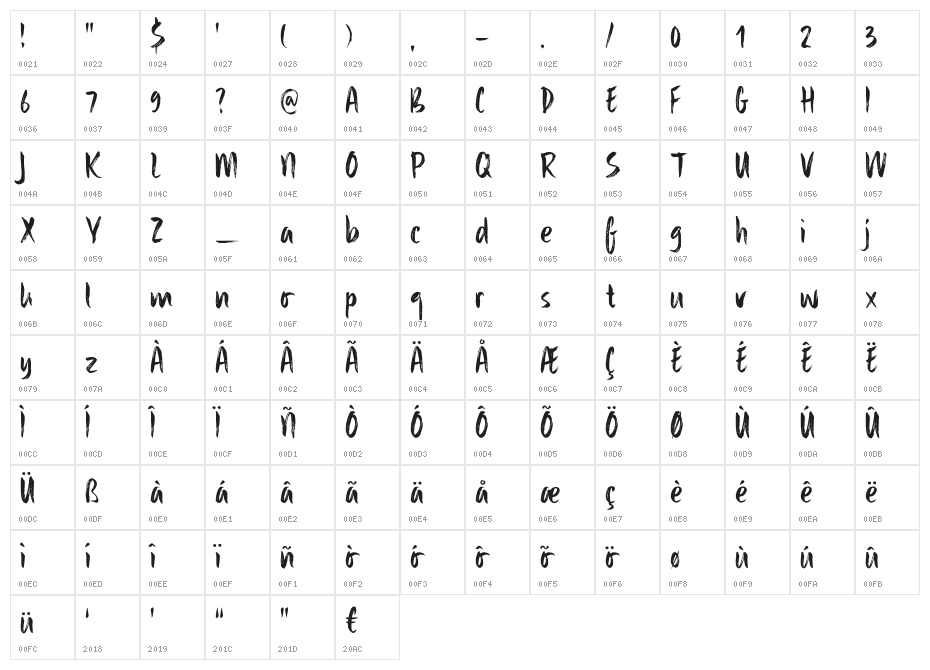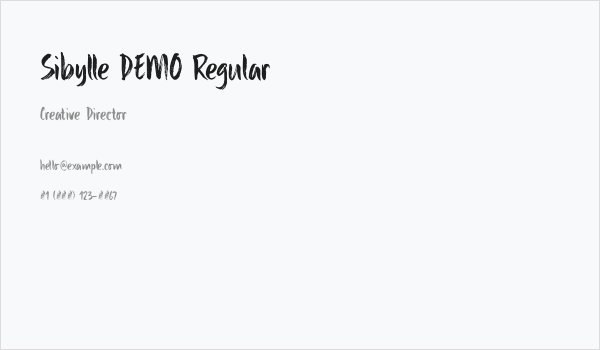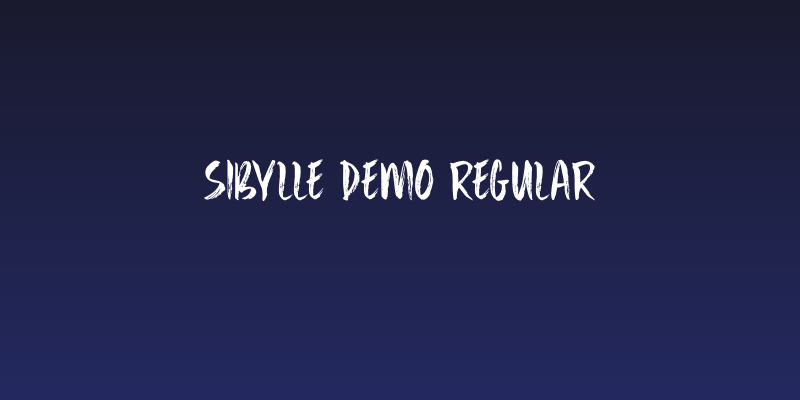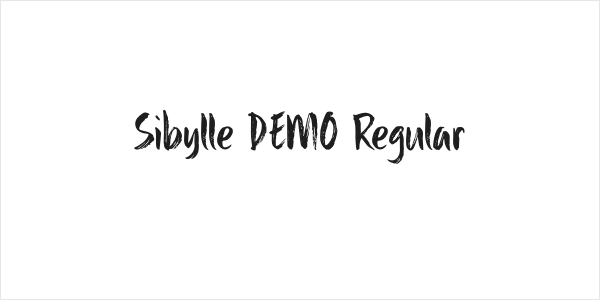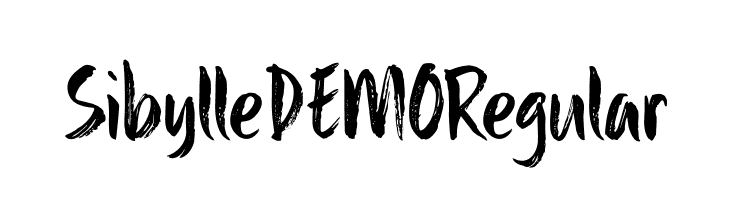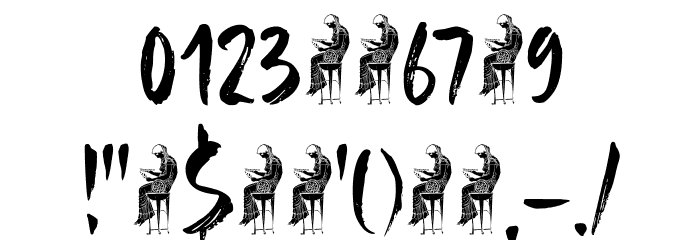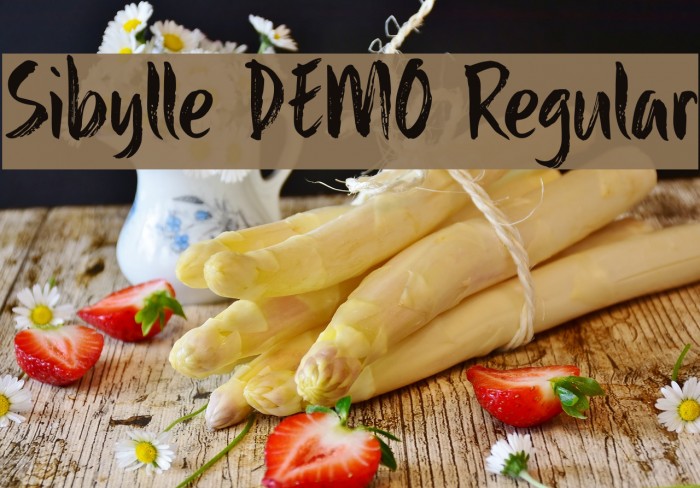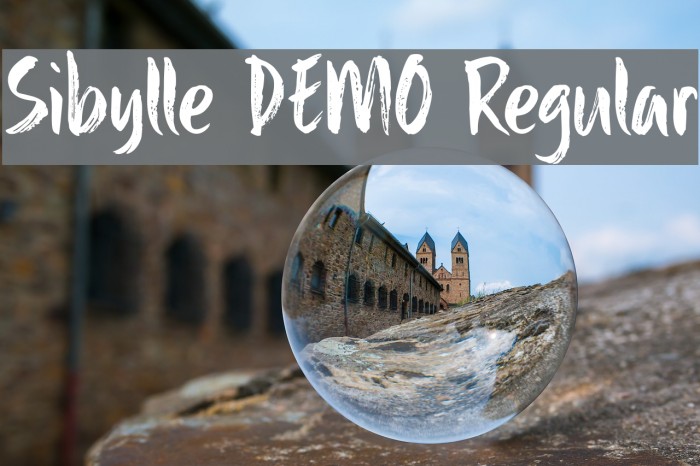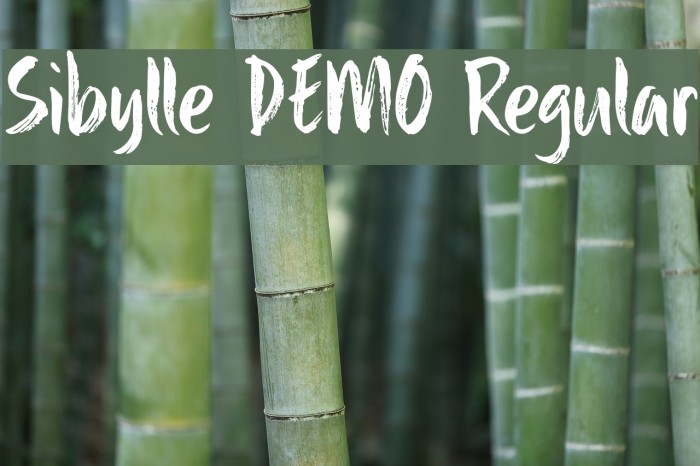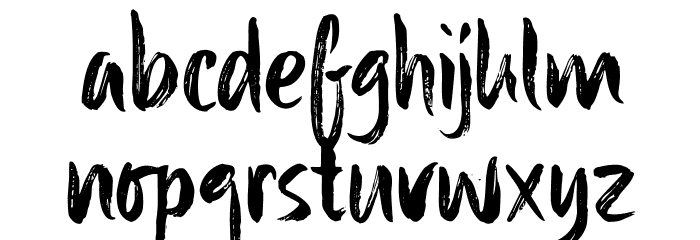
Sibylle DEMO Regular Font
This font features a bold, brush-like style with a hand-painted appearance. The strokes are uneven and textured, giving it a dynamic and energetic feel. The uppercase letters are tall and commanding, while the lowercase letters maintain a consistent flow with slightly varied heights. Numbers and special characters follow the same artistic brushstroke pattern, adding to the cohesive look. The font's overall design is expressive and artistic, making it suitable for creative and eye-catching projects.
| Overall Style | Artistic, Expressive |
| Proposed Projects | Ideal for posters, album covers, branding projects, and any design requiring a bold, artistic touch. |